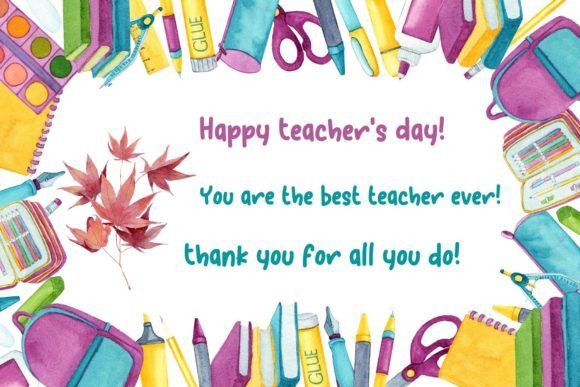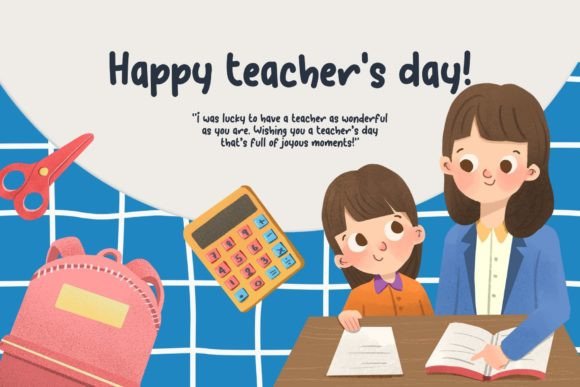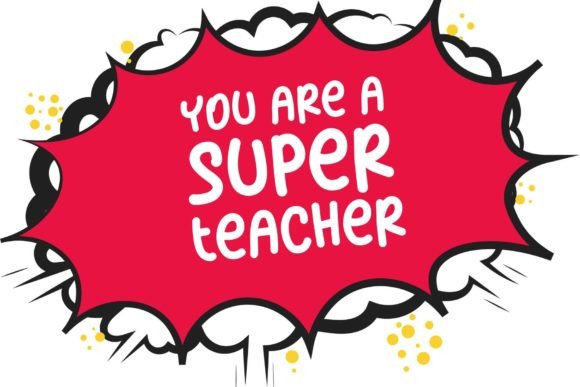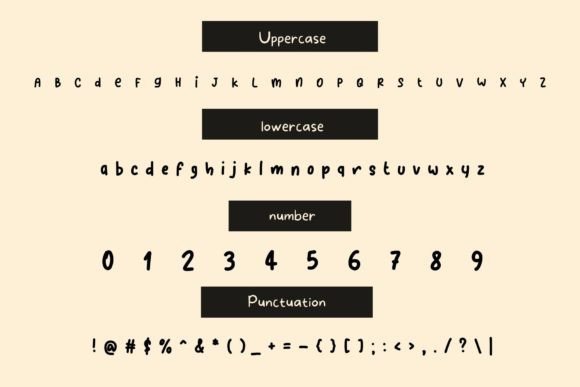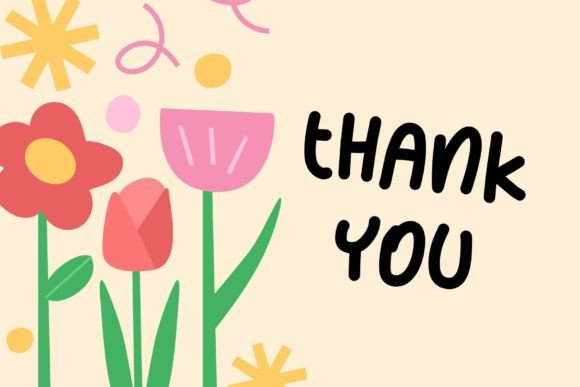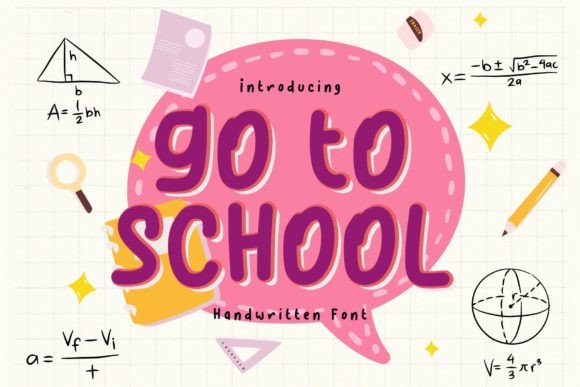
Introducing Go to School Font: The Perfect Choice for Creative Projects
Are you looking for a font that embodies playfulness and authenticity? Look no further than Go to School Font! This adorable handwritten font is perfect for adding a personal touch to your designs, making it ideal for a wide range of projects. In this article, we’ll explore the features and benefits of Go to School Font, and show you how to make the most of this versatile font.
What is Go to School Font?
Go to School Font is a cute and charming handwritten font that is designed to bring a sense of playfulness and fun to your designs. Its authentic and informal feel makes it perfect for a variety of creative projects, from blog posts and logos to branding, ads, invitations, greeting cards, planners, photo albums, decorations, and more.
Key Features of Go to School Font
- Playful and Authentic: Go to School Font has a unique and charming personality that adds a touch of whimsy to your designs.
- Handwritten Style: The font’s handwritten style gives it a personal and informal feel that’s perfect for creating a connection with your audience.
- Versatile: Go to School Font is suitable for a wide range of projects, from digital designs to print materials.
- Easy to Read: The font is clear and easy to read, making it perfect for body text and headings.
Benefits of Using Go to School Font
So why choose Go to School Font for your next project? Here are just a few benefits of using this amazing font:
- Adds Personality: Go to School Font adds a touch of personality to your designs, making them stand out from the crowd.
- Creates Emotional Connection: The font’s playful and authentic feel helps create an emotional connection with your audience.
- Versatile: Go to School Font can be used for a wide range of projects, making it a great addition to your font library.
Project Ideas Using Go to School Font
So what can you create with Go to School Font? Here are some project ideas to get you started:
- Blog Posts: Add a personal touch to your blog posts with Go to School Font.
- Logos and Branding: Use Go to School Font to create a unique and memorable logo for your brand.
- Ads: Make your ads stand out with Go to School Font’s playful and attention-grabbing style.
- Invitations: Create personalized invitations for parties, events, and more.
- Greeting Cards: Add a touch of whimsy to your greeting cards with Go to School Font.
- Planners: Use Go to School Font to create fun and functional planners.
- Photo Albums: Add a personal touch to your photo albums with Go to School Font.
- Decorations: Use Go to School Font to create fun and playful decorations for parties and events.
Go to School Font is a versatile and charming handwritten font that’s perfect for adding a personal touch to your designs. With its playful and authentic feel, it’s ideal for a wide range of projects, from blog posts and logos to branding, ads, invitations, greeting cards, planners, photo albums, decorations, and more. So why not give Go to School Font a try? Add it to your font library today and see the difference it can make in your designs!